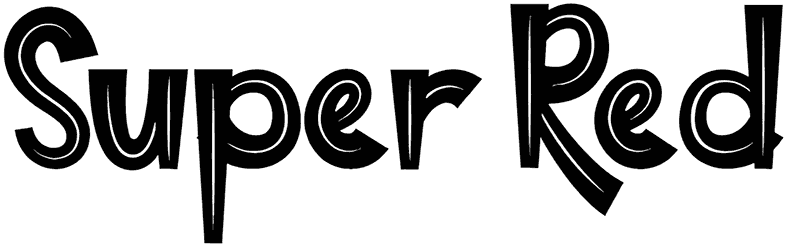
Super Red Font
Let’s delightfully surprise your viewers with a cartoon font like Super Red. This fancy font with a chunky face and a cute vibe can be set on posters, wordmarks, illustrations, or more of the same. Super Red doesn’t consist of numbers and punctuation marks, but having two styles can compensate for this lack.